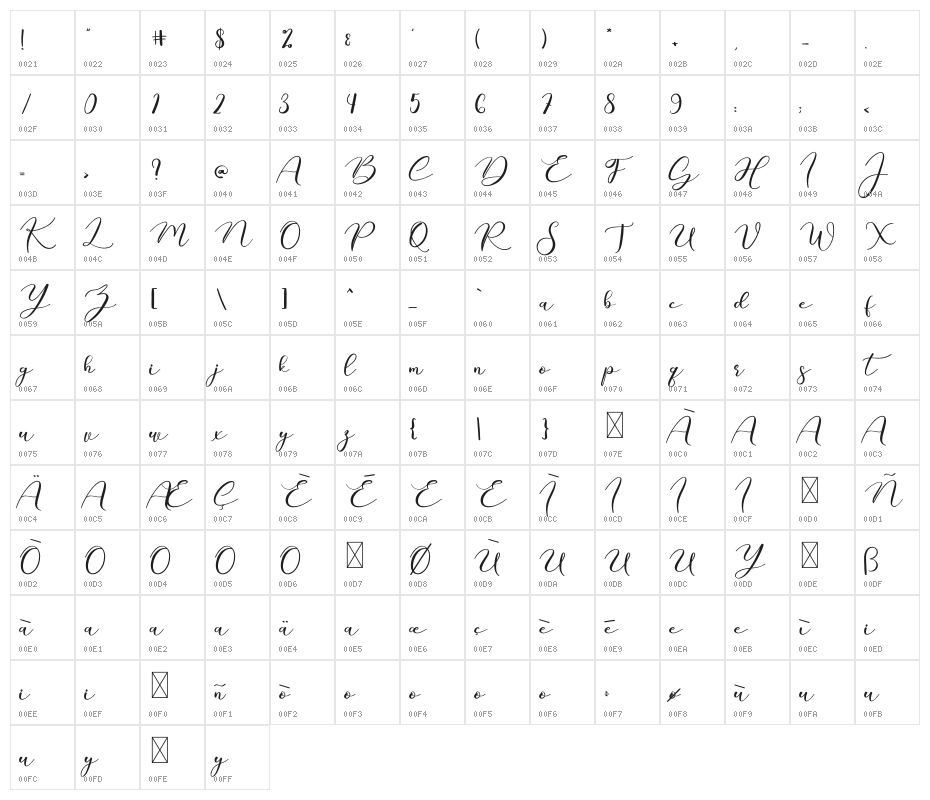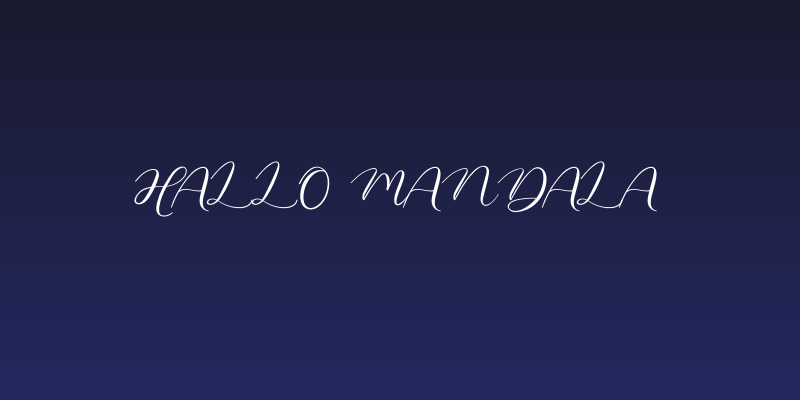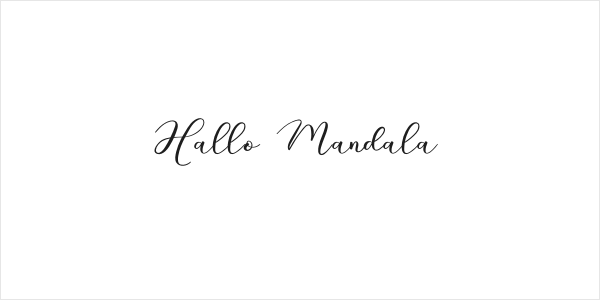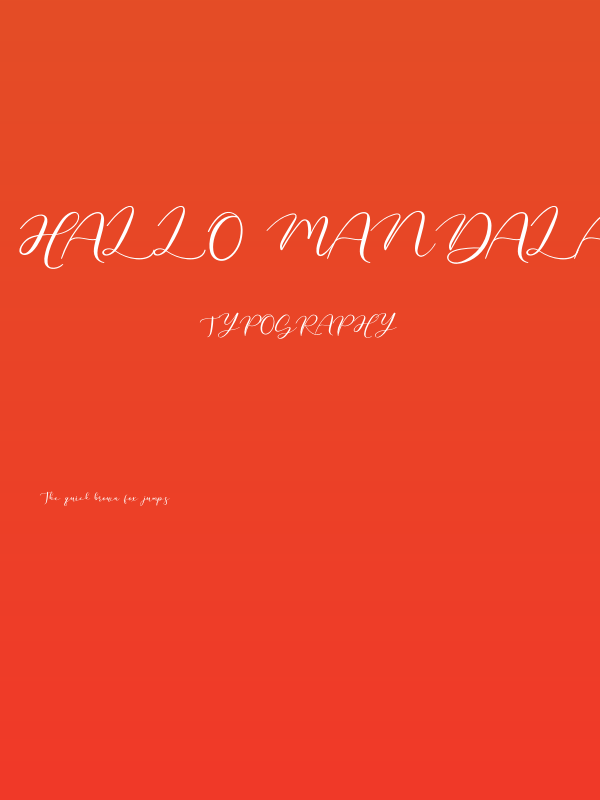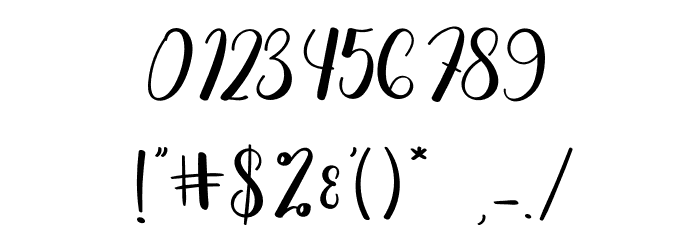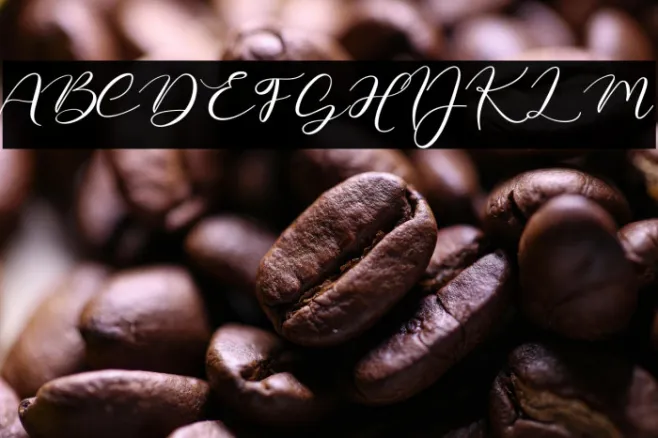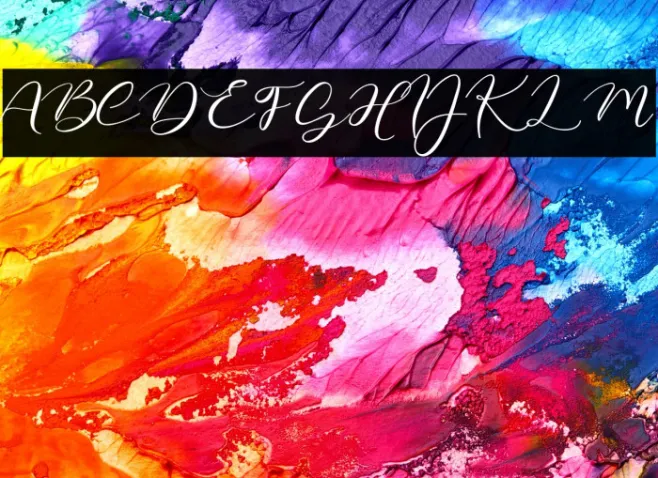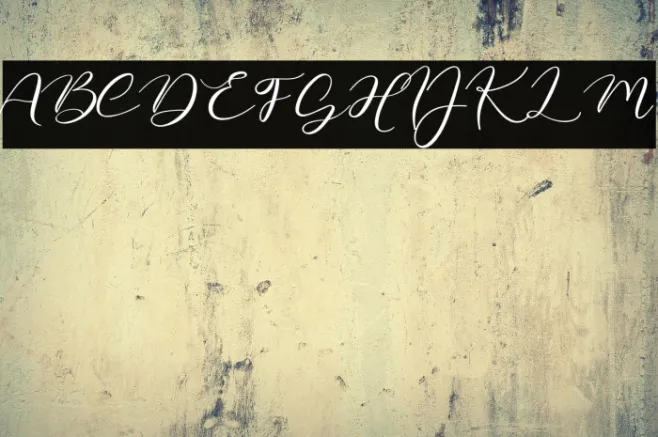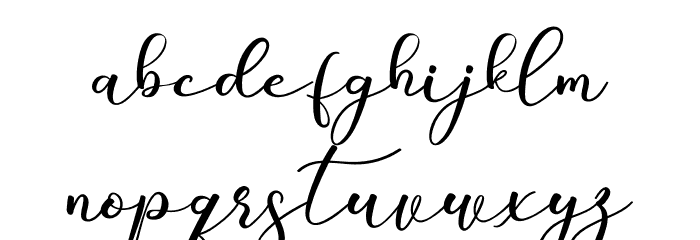
Hallo Mandala Font
Hallo Mandala Description
This elegant script font features a flowing, cursive style that exudes sophistication and charm. The uppercase letters are characterized by their sweeping curves and graceful loops, while the lowercase letters maintain a consistent fluidity that enhances readability. The numerals are stylish yet clear, making them suitable for various applications. Special characters are thoughtfully designed to complement the overall aesthetic, ensuring a cohesive look across all text elements. This font's delicate strokes and balanced proportions make it ideal for projects that require a touch of elegance and personality.
| Proposed Projects | Ideal for wedding invitations, greeting cards, branding, and elegant packaging designs. |